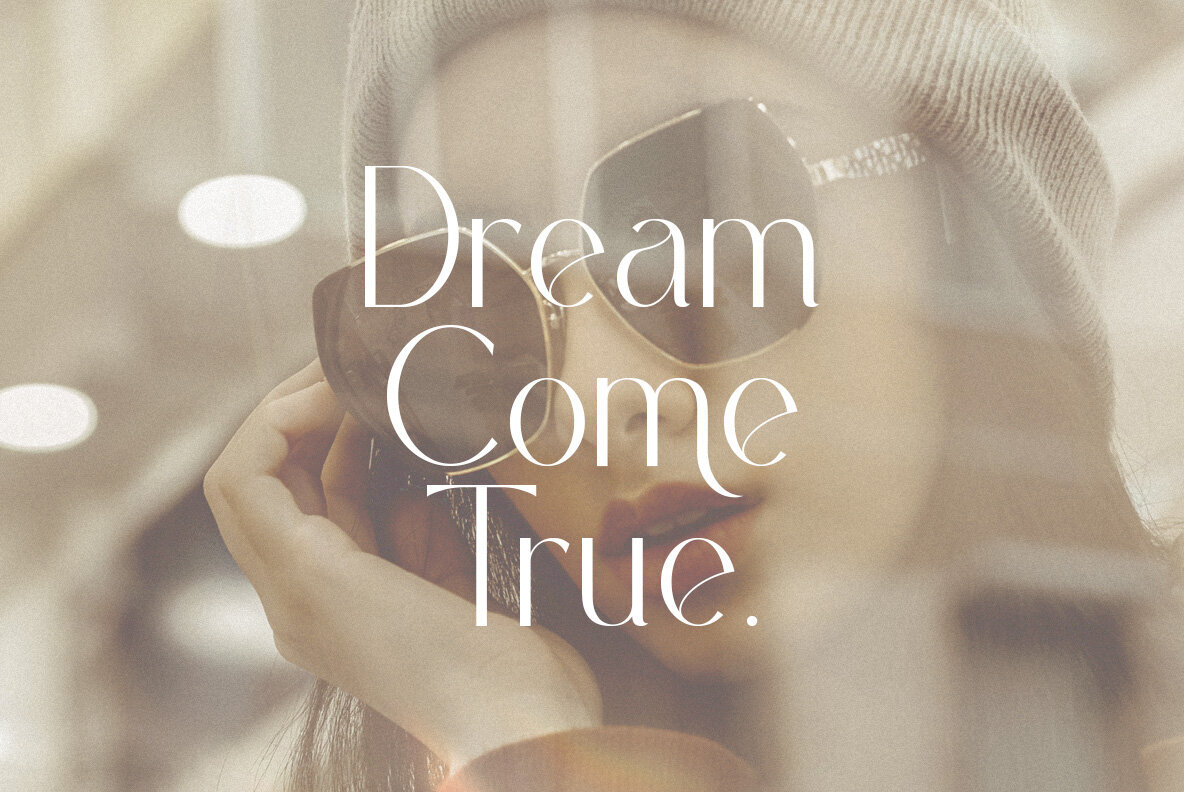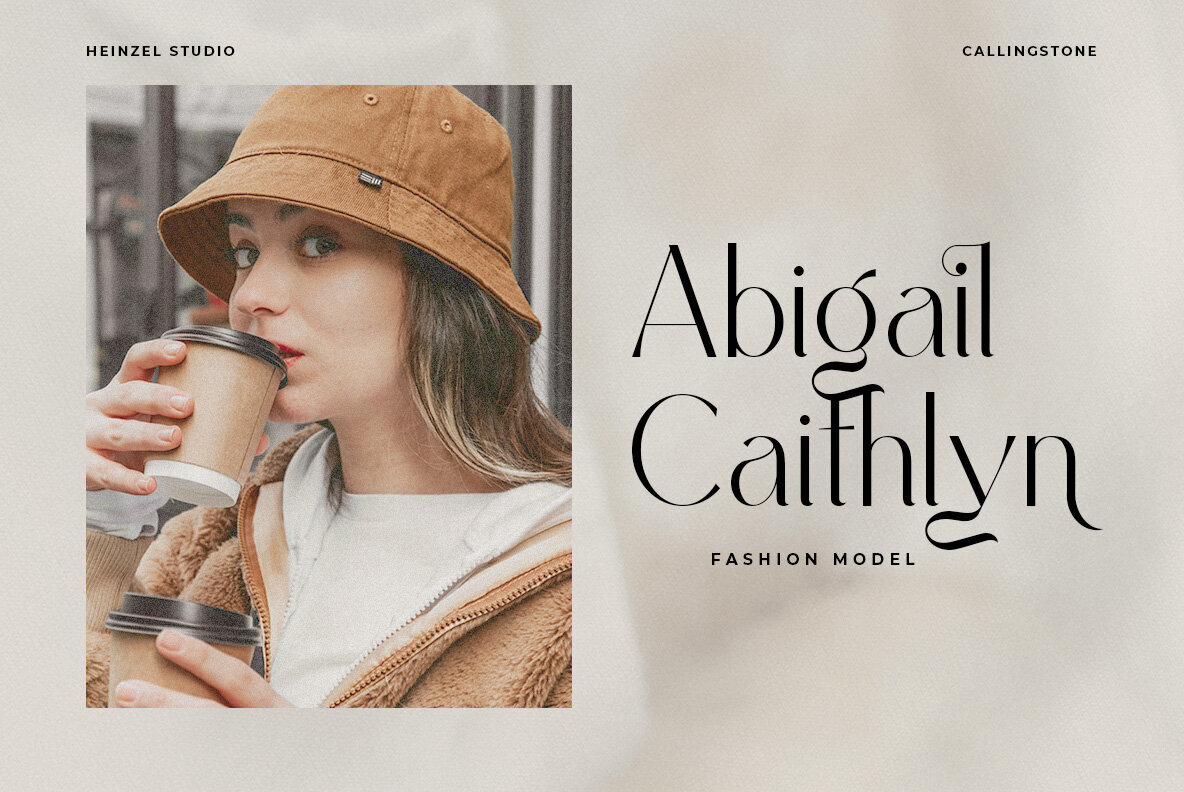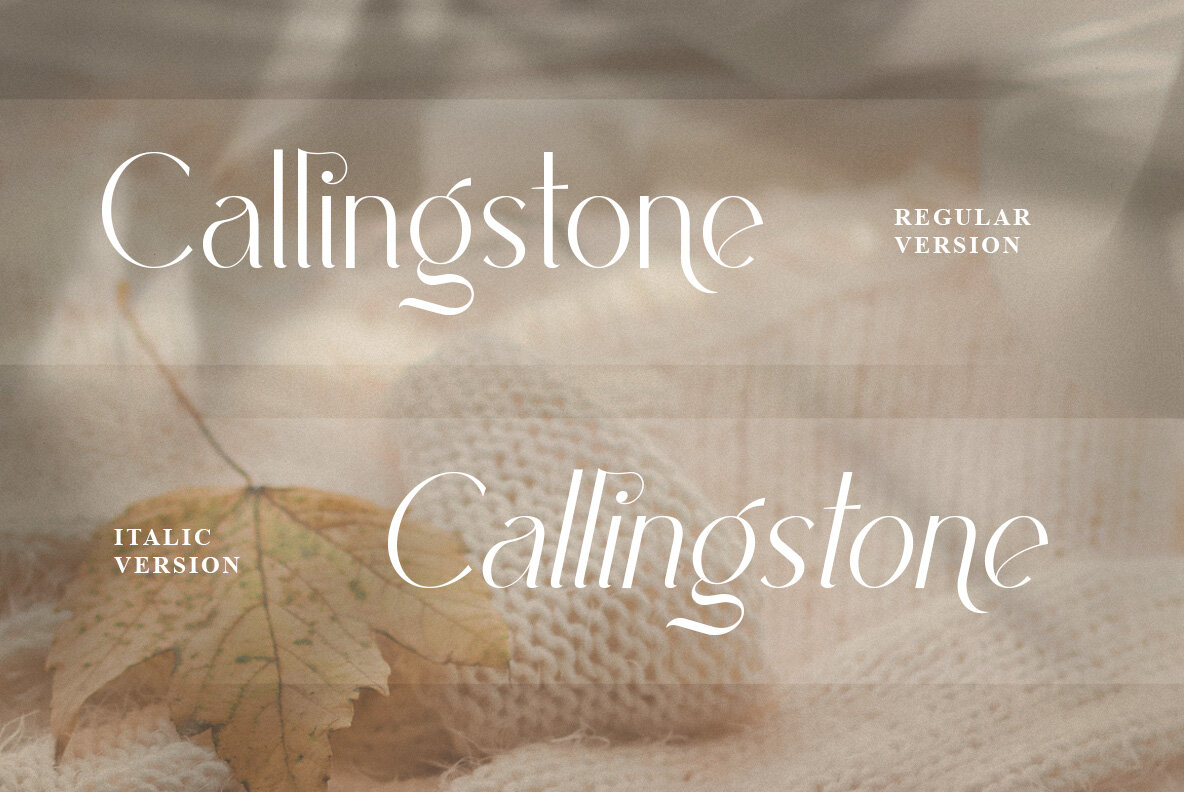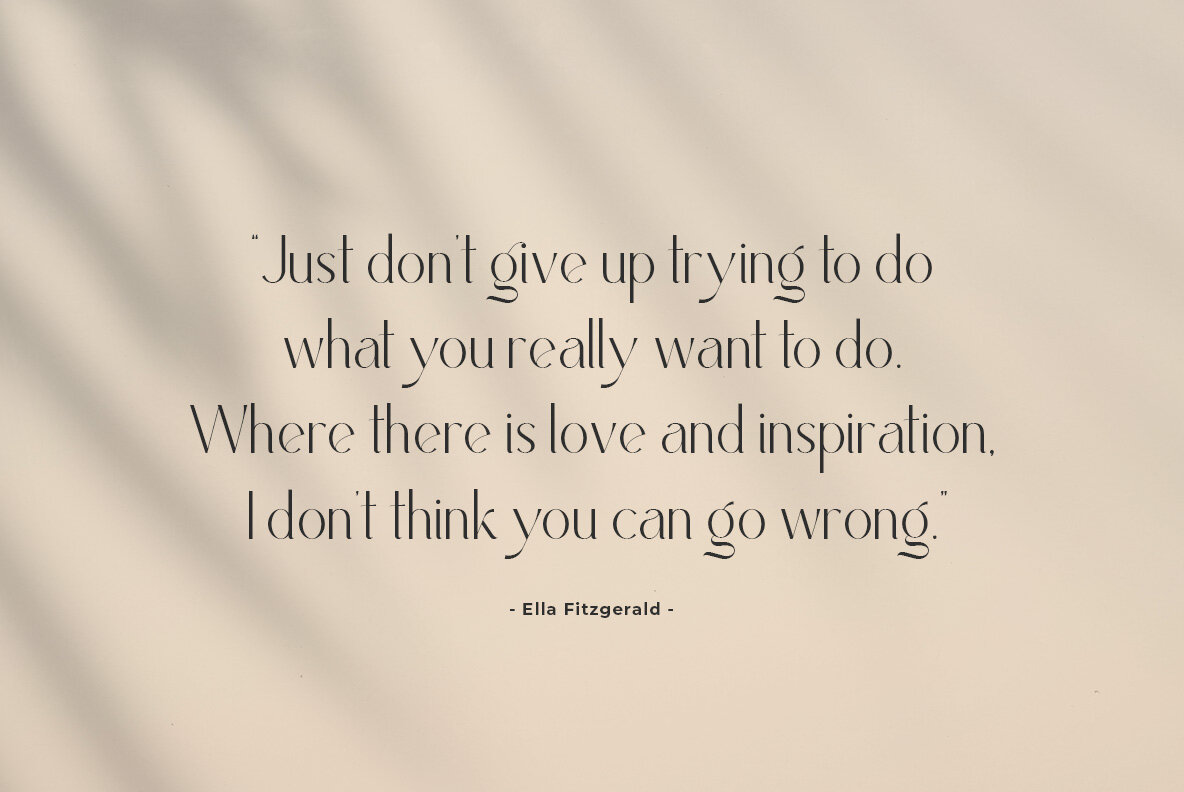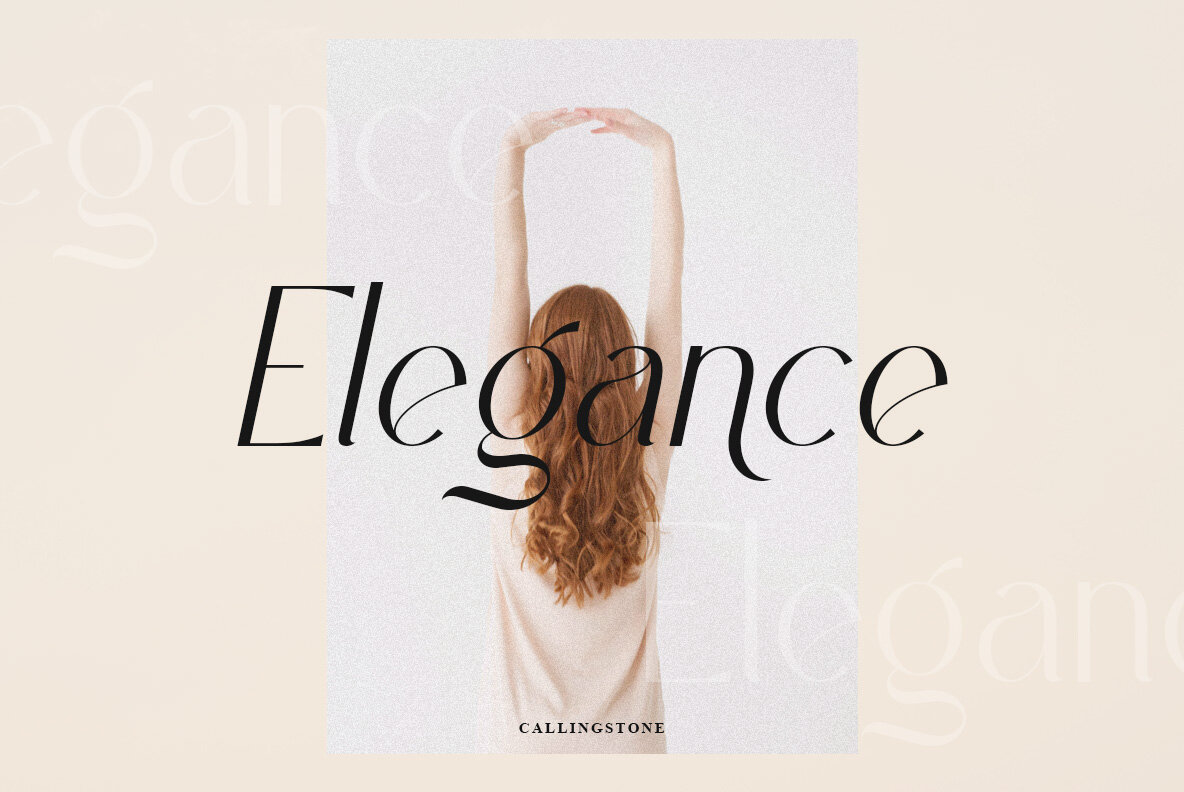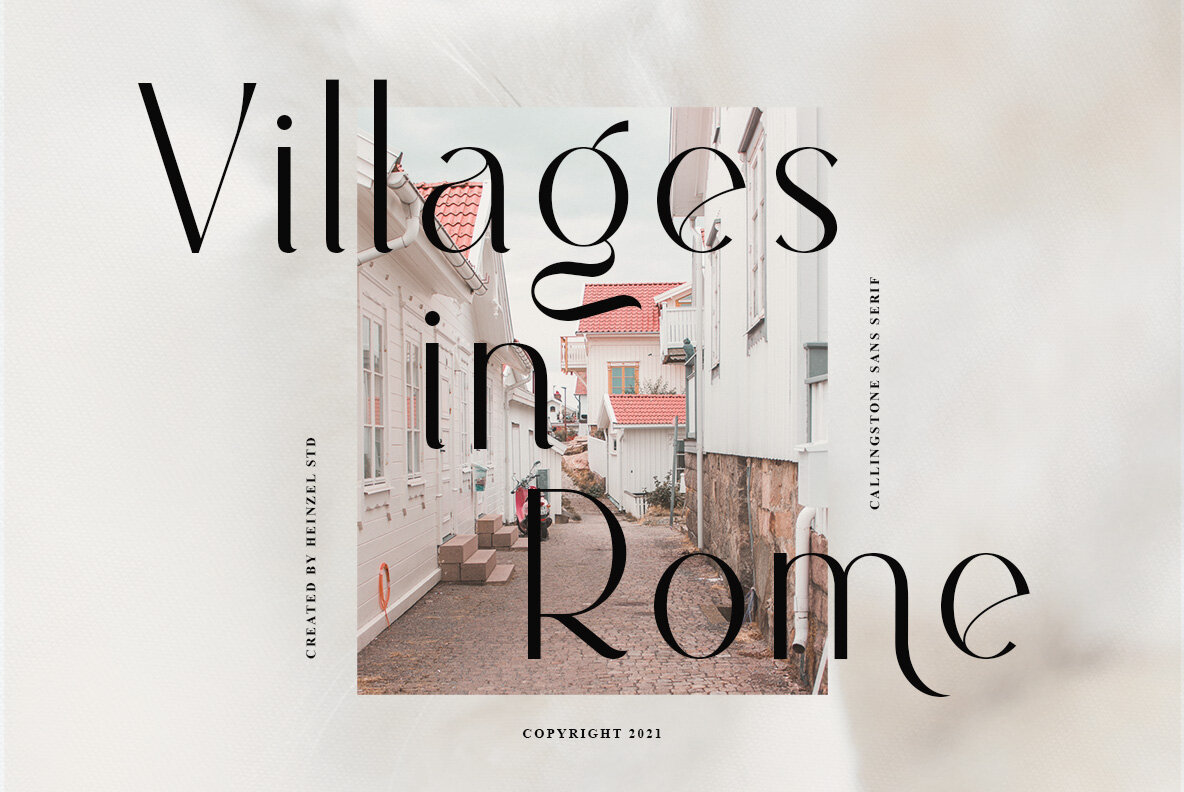
Callingstone Font
Callingstone stands as a modern sans serif font, exuding both elegance and contemporary flair. Designed to leave a lasting impression, it is ideal for crafting exquisite wedding invitations, stunning stationary art, and captivating social media posts. With its PUA encoding, Callingstone offers ease of access to a rich array of glyphs and ligatures, allowing designers to fully express their creativity and enhance the visual appeal of their projects.Callingstone: Sophisticated Sans Serif Elegance